Well, here it is the beginning of March and those three new fonts I wrote about in December are still not out. A few people have written me about this, so I should explain.
Basically, I keep getting sidetracked by client work, taking time away from finishing the new fonts. Client work has real deadlines—deadlines I have no control over. My self-imposed deadline for finishing the fonts was, by comparison, more flexible. So when push came to shove, you can imagine what happened.
The good news is that I’m on the case again and it shouldn’t be much longer. I hesitate to give a date except: soon.
Update: Kinescope and Snicker have now been released (April 30, 2007).
As you may be able to tell by my sporadic Notebook postings of late, I’ve been a very busy guy. Some of the things I’ve been working on I can’t talk about (yet).
One of the things I can talk about is three new fonts I will be releasing in the near future. All three were inspired by hand lettered titles in 1940s films.
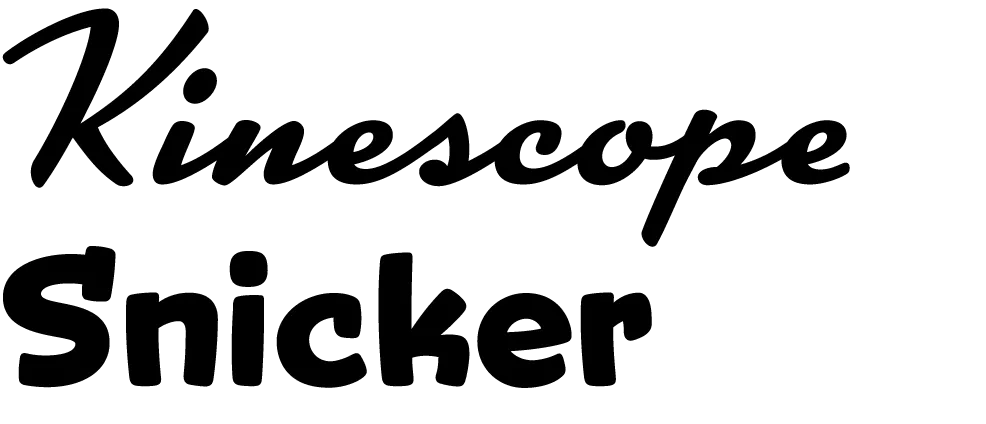
Kinescope and Snicker are loosely based on title lettering in Fleischer Studio’s animated Superman films from the forties.
In both fonts I’ve ended up with something a bit different than the source of my inspiration, but I think you can see the resemblance.
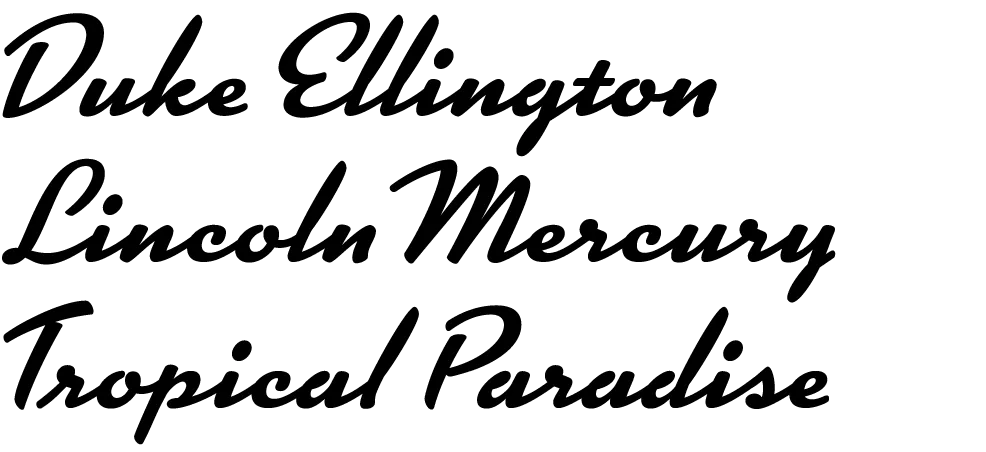
Kinescope will include context-sensitive characters. For example, when a letter falls at the end of a word, the connecting stroke is clipped off. This gives settings a more natural hand-lettered look. Stylistically, Kinescope falls somewhere between Brush Script and Kaufmann Script, but more elegant than either.
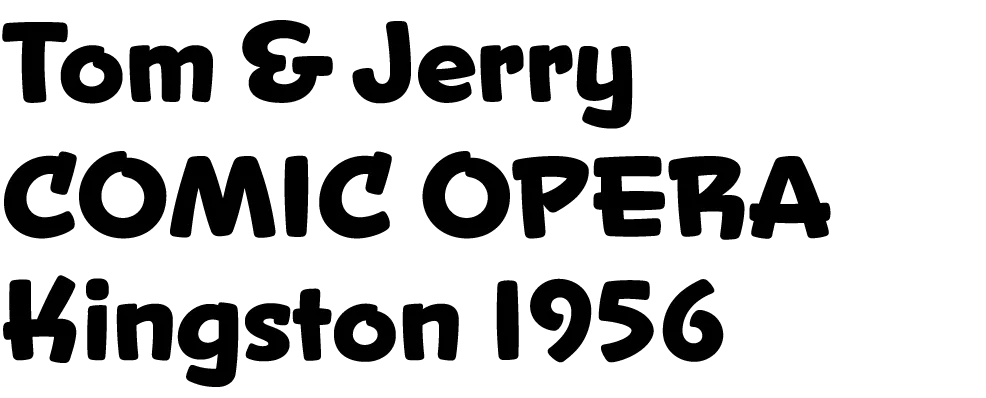
Snicker is a cartoony block letter style. One of the design challenges with Snicker was to come up with a suitable lowercase—the lettering in the Fleischer titles that inspired me only used capitals. Although it is intended for display sizes, it works pretty well for text. Consequently, I’m toying with the idea of adding a lighter weight and italics. It could perhaps become a typographically interesting alternative to Comic Sans…
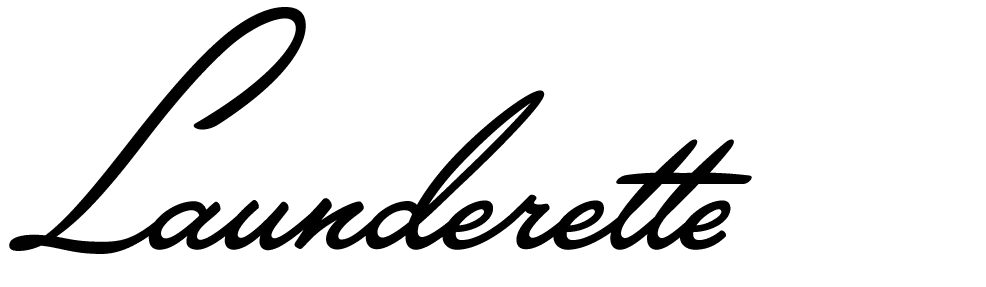
The third font, Launderette, is based closely on lettering used in the titles of the 1944 Otto Preminger film, Laura:
This font was originally commissioned by a filmmaker who wanted to use the same “font” in the titles of his own film. As with most films of that time, the titles were hand-lettered by an artist, not typeset.
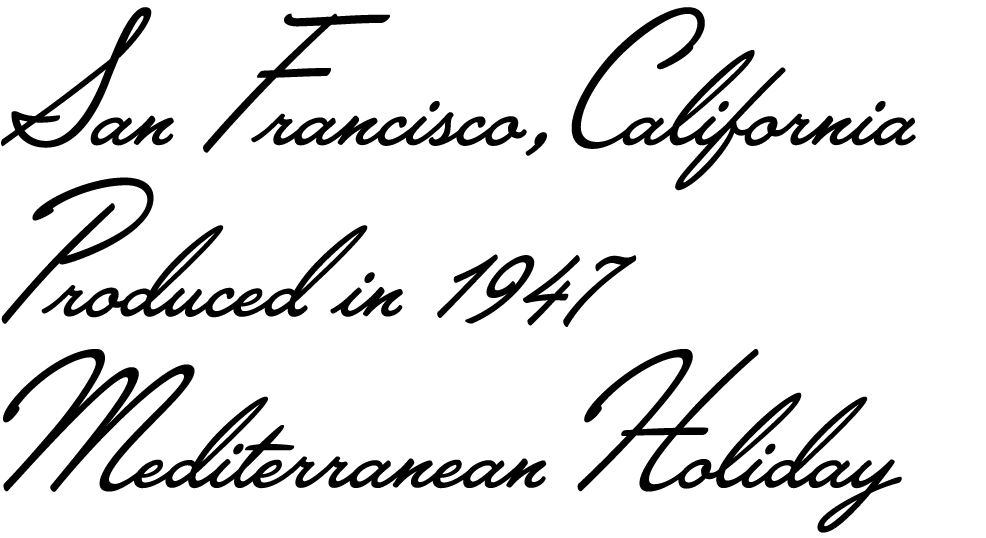
The challenge with this font was that there were very few characters in the source lettering. Most of the characters had to be created from scratch to match the style of the existing ones. Launderette, like Kinescope, will have context-sensitive characters to give it a custom, hand-lettered look.
I hope to release these new fonts by the end of the year.
Update: Kinescope and Snicker have now been released (April 30, 2007). Unfortunately, the name Landerette was already in use (twice!), so I changed it to Lakeside. Lakeside has also been released (February 7, 2008).
The new release of Proxima Nova features a couple of compatibility fixes and more flexible access to alternate characters.
As a side benefit of one of the fixes, the Normal, Condensed, and Extra Condensed styles appear in their own font submenus. This turns out to be a better arrangement than having the whole family all in one submenu. I should have done it this way in the first place.
Alternate characters will now be much easier to deal with. I’ve set up seven “Stylistic Sets” so that alternate characters may be substituted globally in any combination. The new sets are also smarter the the original two in the way they handle the two-story and one-story lowercase “a” in the roman and italic. Again, I should have done it this way in the first place.
I’ve been working on this font family for almost 25 years. Here’s an early sketch (possibly the first one) from 1981:
Here’s Proxima Nova Bold for comparison:
The caps are a bit different from the early concept sketch (they started out with proportions more like Futura), but my concept for the lowercase has remained virtually the same all these years.